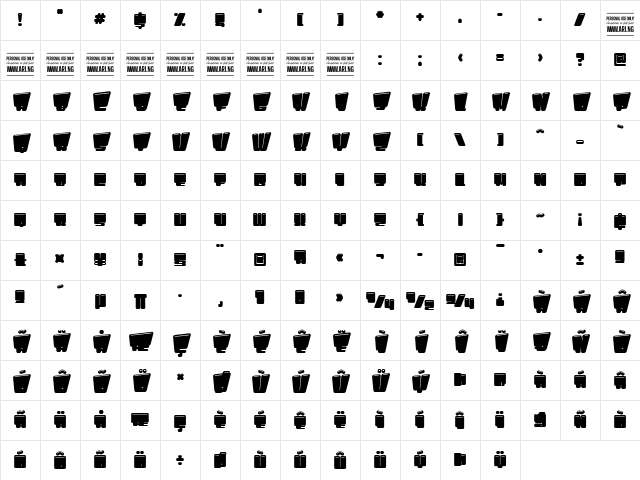
Complete Pligo PERSONAL USE ONLY Regular glyph index. Displaying only characters natively supported by Pligo PERSONAL USE ONLY Regular font.
Pligo PERSONAL USE ONLY is a composed and adaptable typeface that performs quietly and consistently across a wide range of design contexts.